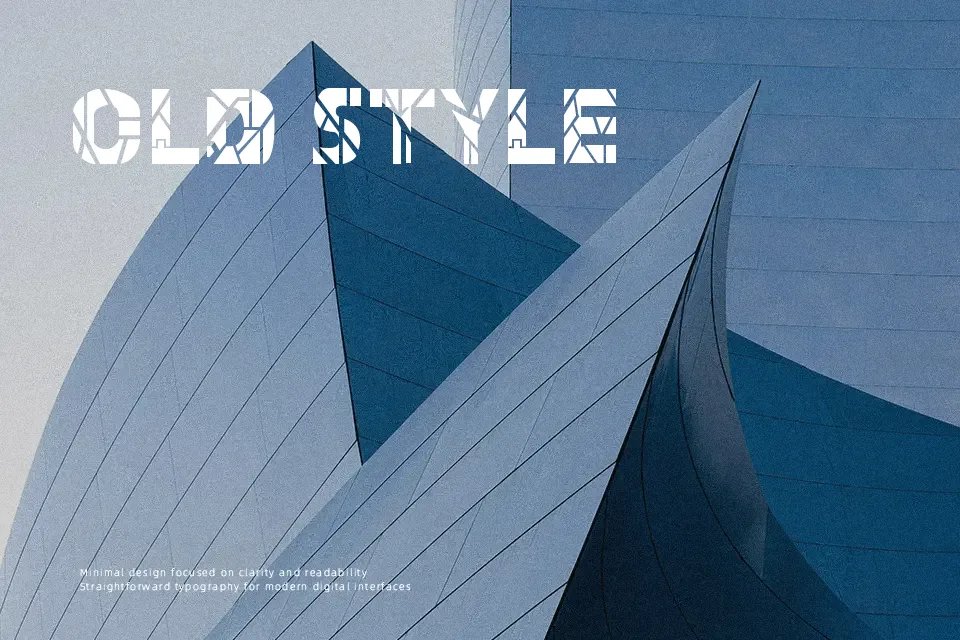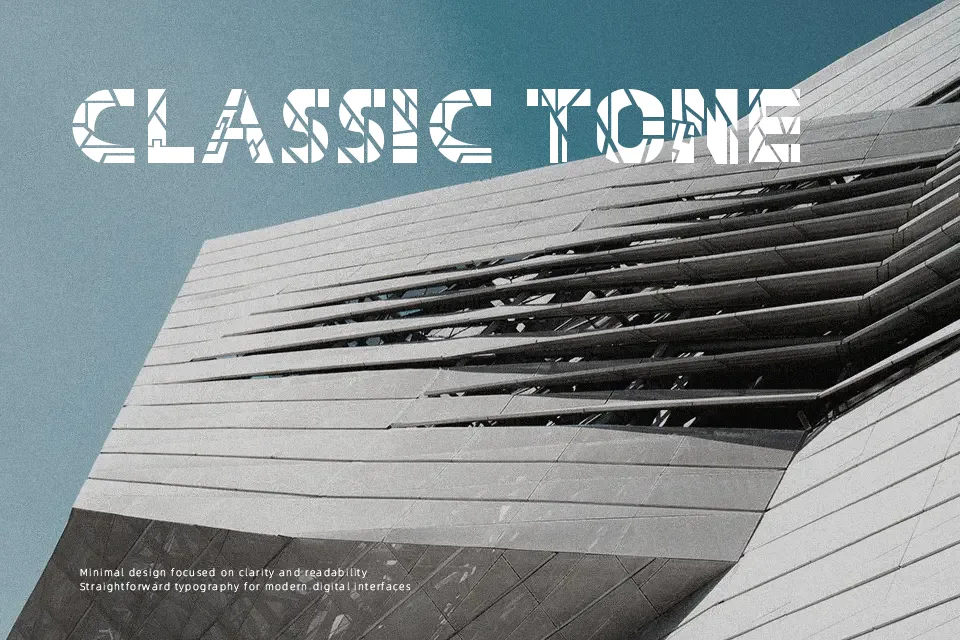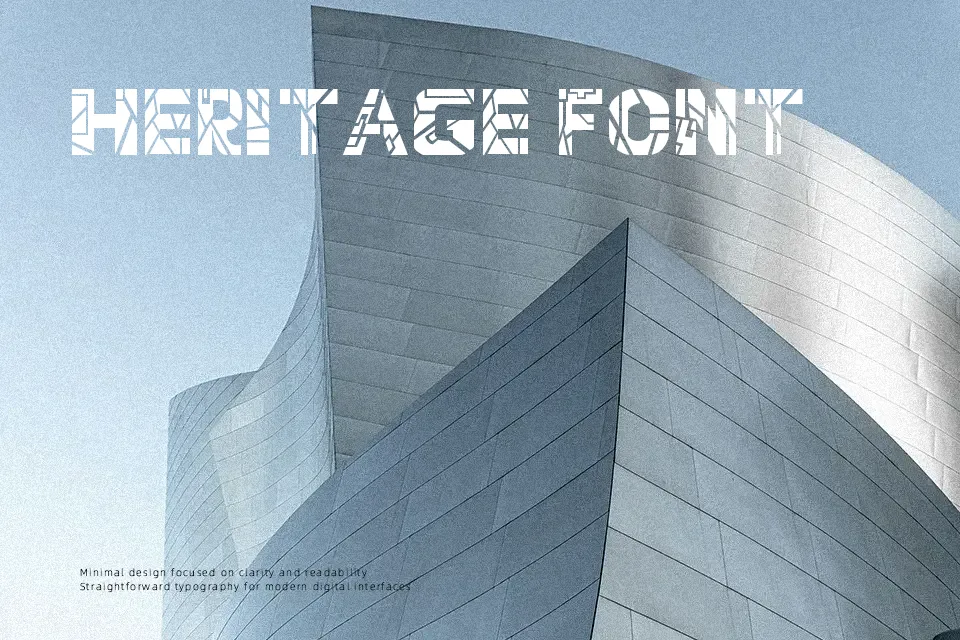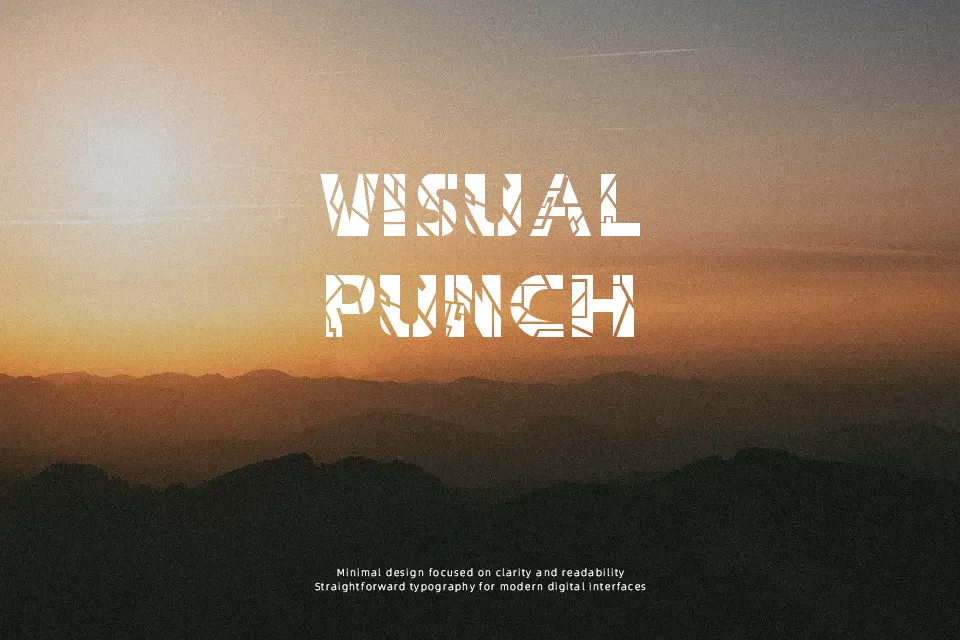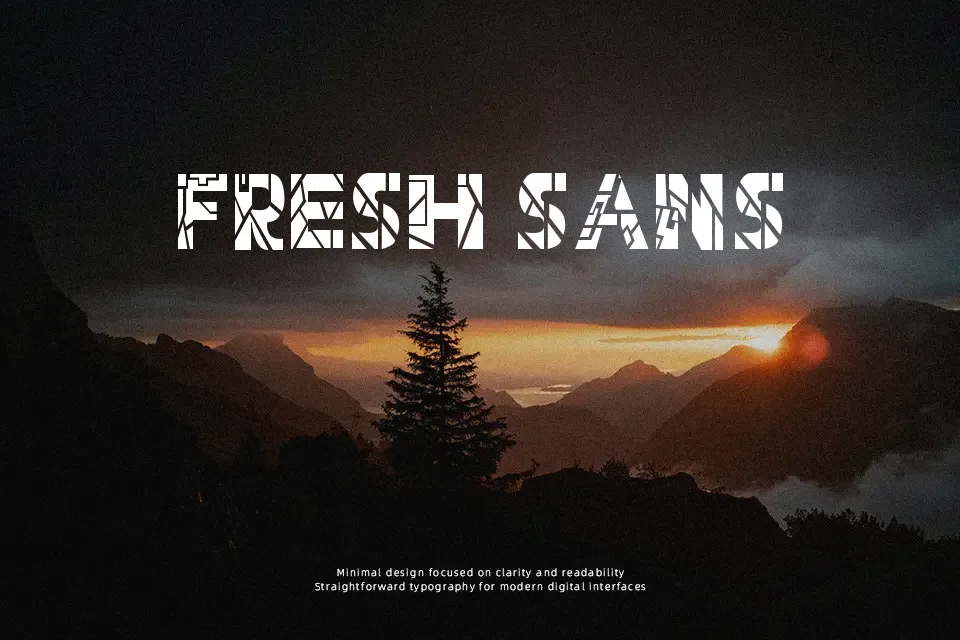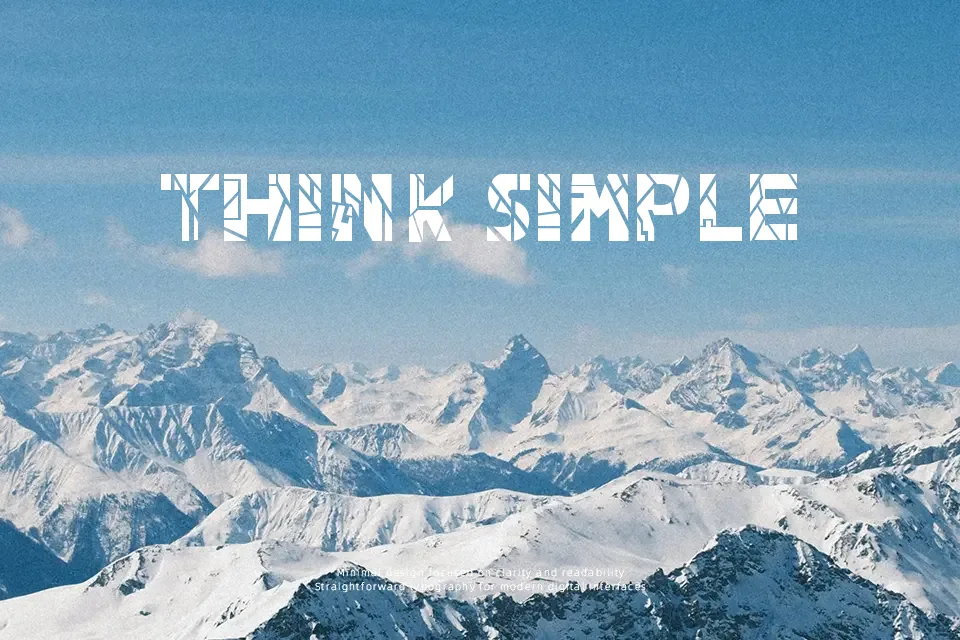
Capital Revolution Font
Capital Revolution Font features thick, blocky glyphs sliced by precise diagonal incisions to create an aggressive stencil aesthetic. The letterforms rely on heavy stroke weights and tight interior counters, establishing a dense visual rhythm across all-caps settings. Consistent proportional widths give the alphabet a grounded, industrial structure that performs reliably in video game titles, athletic apparel graphics, and dystopian film packaging. The prominent angular fractures give display headlines a distinctly mechanical presence. However, the heavy stroke density and fragmented contours substantially reduce legibility in continuous body copy, making the typeface impractical for small user interfaces or dense editorial paragraphs.
Best For: esports team jerseys,action video game titles,industrial product packaging,streetwear apparel graphics
Not Ideal For: continuous paragraph reading,small mobile UI labels,long editorial articles,legal contract documentation
Perfect for film, gaming, and headline, with a bold and display style.